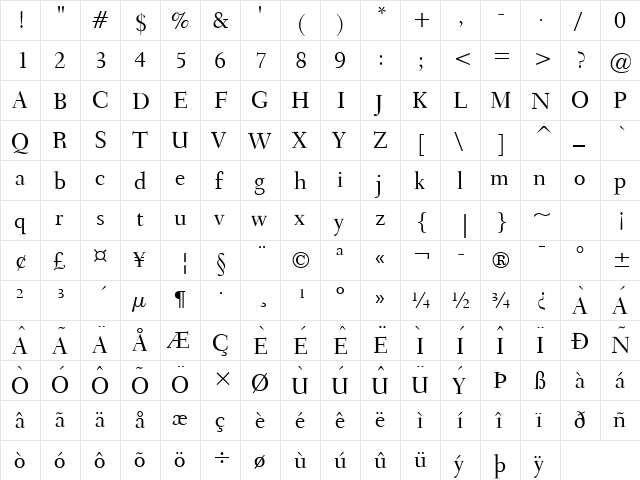
Transit Normal
Design Context for Transit Typeface
Transit is a composed and adaptable typeface that performs quietly and consistently across a wide range of design contexts.
Pro Tip: Pair Transit with a font of contrasting weight or personality to build a more expressive typographic hierarchy.